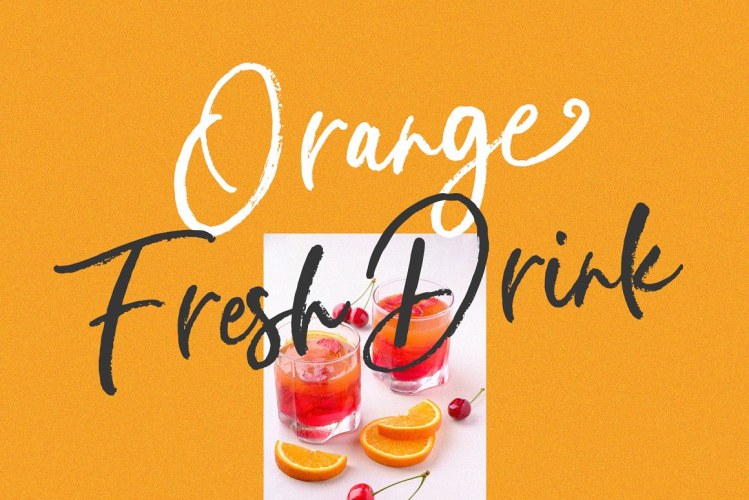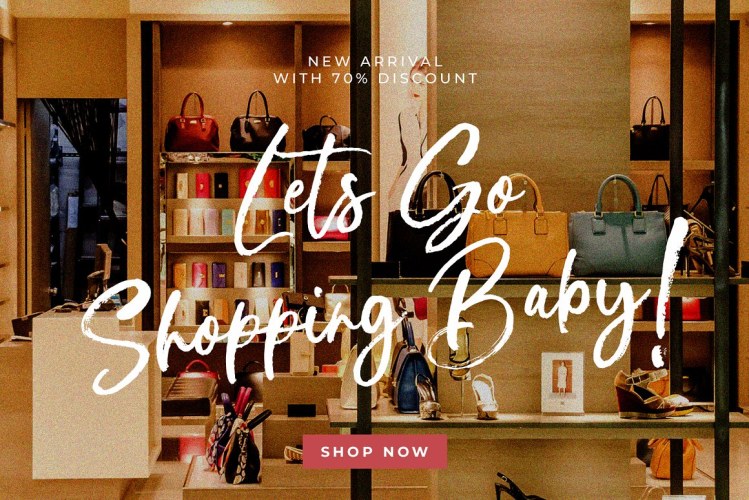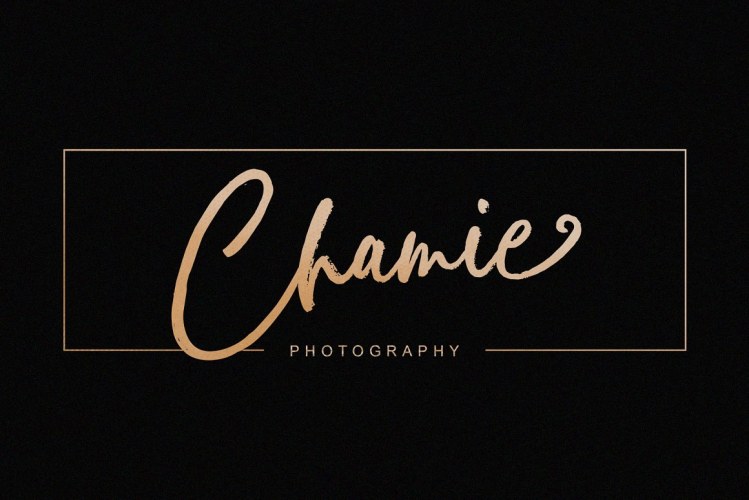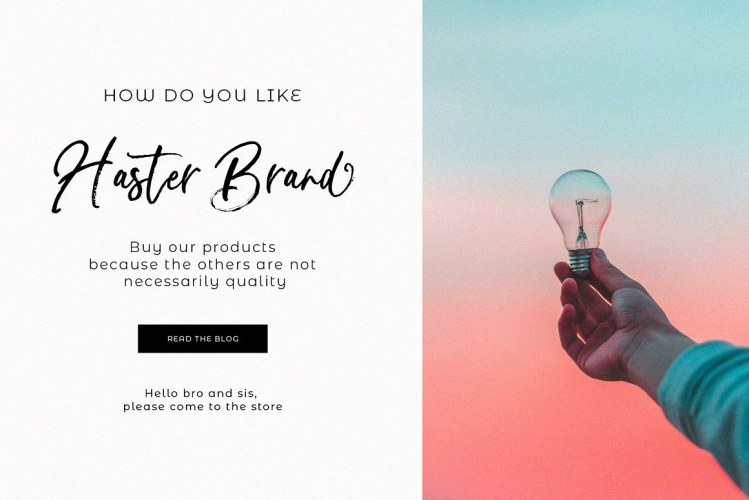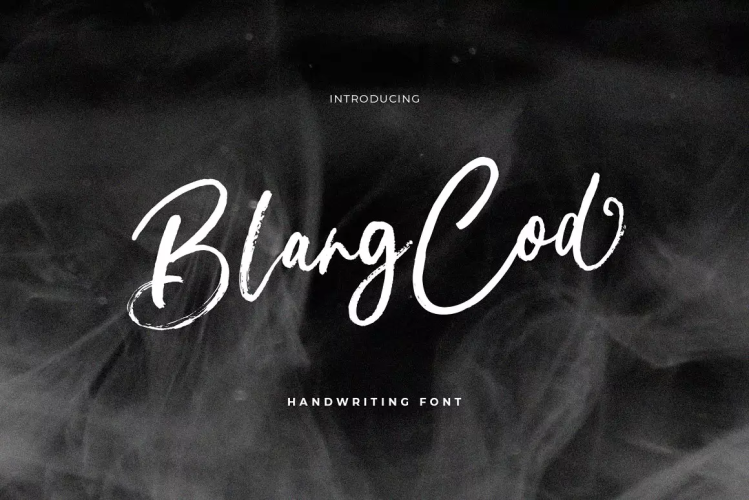
Blang Cod Handwritten Font
Blang Cod Brush is a handwritten script font, based on free-flowing, friendly, and organic signature style expressions. hand painted with love. Sellyna Brush is available with alternative ligatures and characters in the Open Type Feature. Perfect for branding projects, logos, product packaging, posters, invitations, greeting cards, news, blogs, everything including personal charm.
Where Blang Cod Handwritten Font works best
Blang Cod Handwritten Font brings a personal, handwritten warmth to invitations, menus and place cards.
Craft brands — coffee, cosmetics, bakery — use scripts like Blang Cod Handwritten Font for signature-style logos and labels.
Pair Blang Cod Handwritten Font with a plain sans for quotes, stories and Pinterest pins that feel handmade.
What is Blang Cod Handwritten Font good for?
Blang Cod Handwritten Font is a Script And Handwritten typeface tagged Branding, Friendly, Handwritten, Packaging. It works well for headlines, logos, posters, social media graphics and branding projects that need a distinctive script and handwritten look.